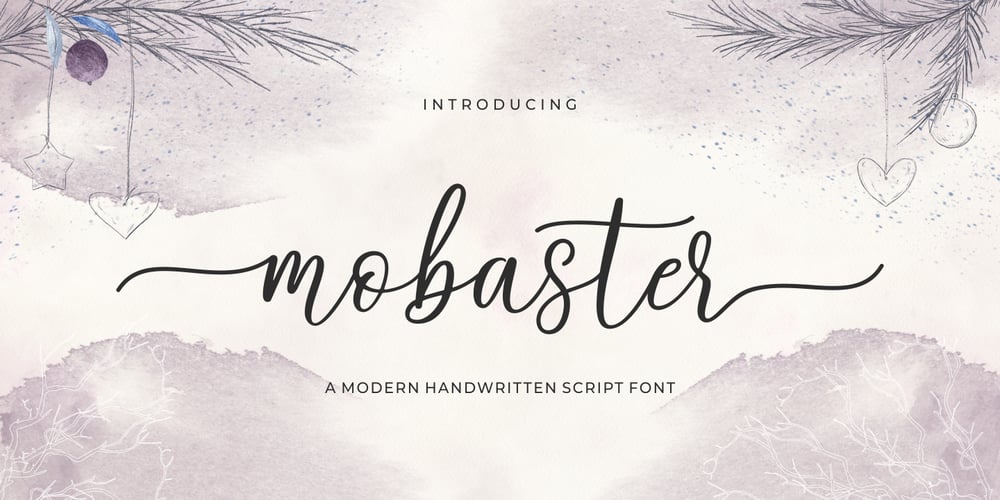
Mobaster Font Family was designed by M Akmal and published by Mega Type. Mobaster contains 1 styles and family package options. Mobaster is a modern handwritten script with, decorative characters, and dancing baselines. It is very suitable for blog headers, branding, t-shirts, weddings, social media, product design, stationery, advertising, clothing, book covers, business cards, greeting cards, merchandise, invitations and handmade quotes and more. Mobaster features OpenType stylistic alternates, ligatures and International support for most Western Languages is included. To enable the OpenType Stylistic alternates, you need a program that supports OpenType features such as Adobe Illustrator CS, Adobe Indesign & CorelDraw X6-X7, Microsoft Word 2010 or later versions. How to access all alternative characters using Adobe Illustrator: https://www.youtube.com/watch?v=XzwjMkbB-wQ Mobaster is coded with PUA Unicode, which allows full access to all the extra characters without having special designing software. Mac users can use Font Book , and Windows users can use Character Map to view and copy any of the extra characters to paste into your favourite text editor/app. How to access all alternative characters, using Windows Character Map with Photoshop: https://www.youtube.com/watch?v=Go9vacoYmBw If you have any question, don’t hesitate to contact me by email : megatype04@gmail.com Thanks & Happy Designing!